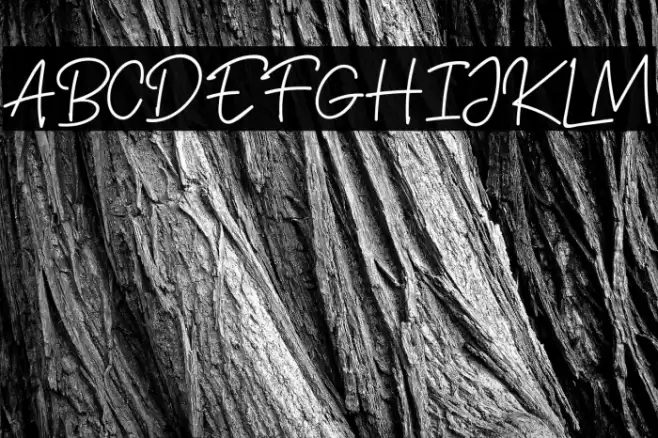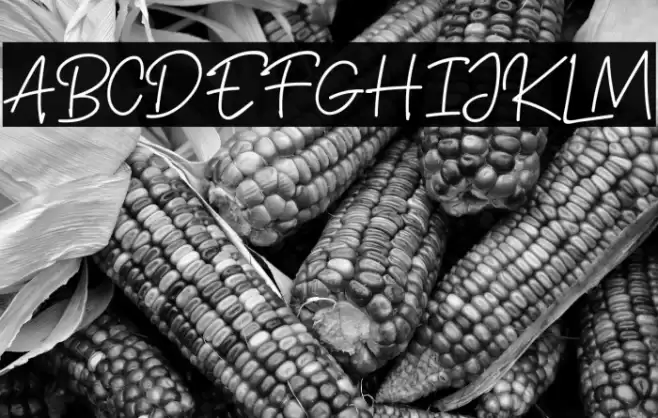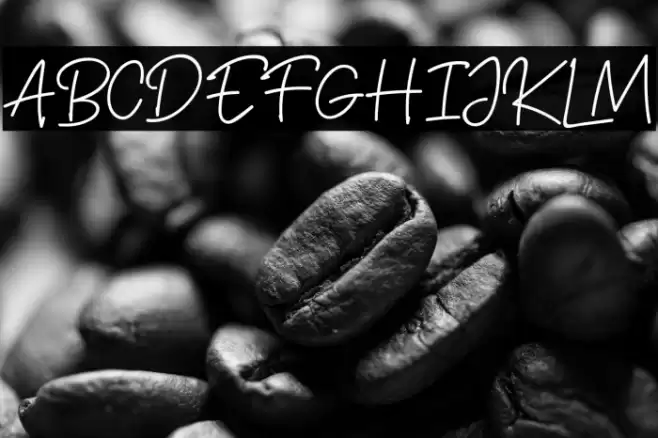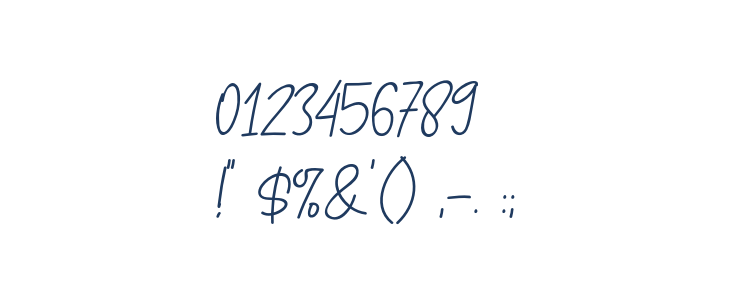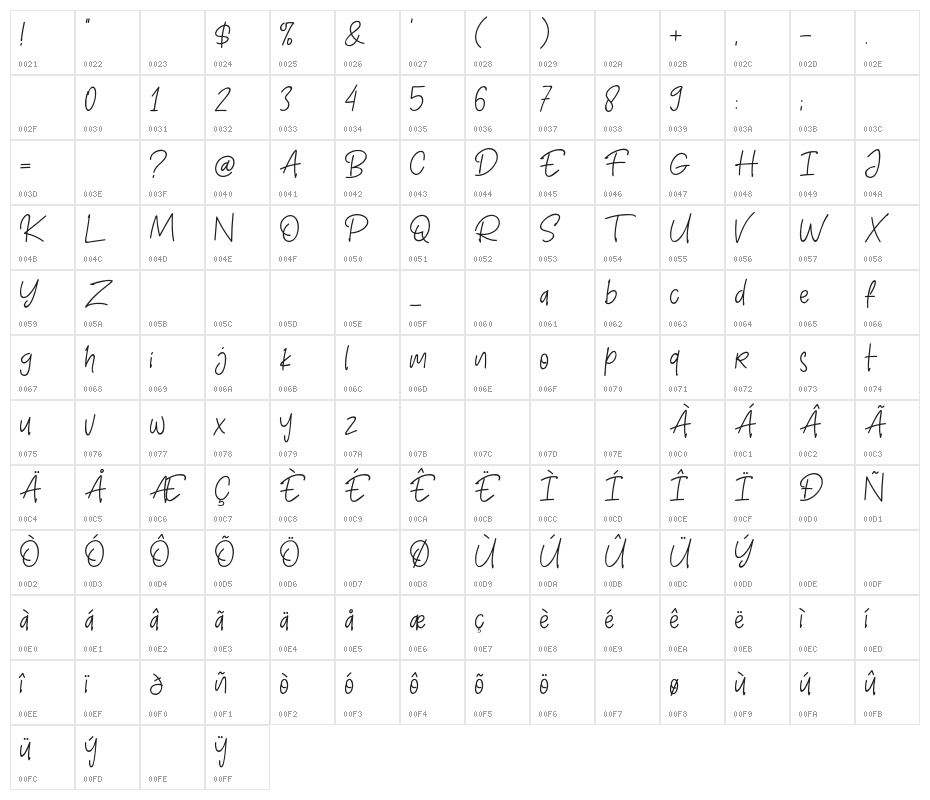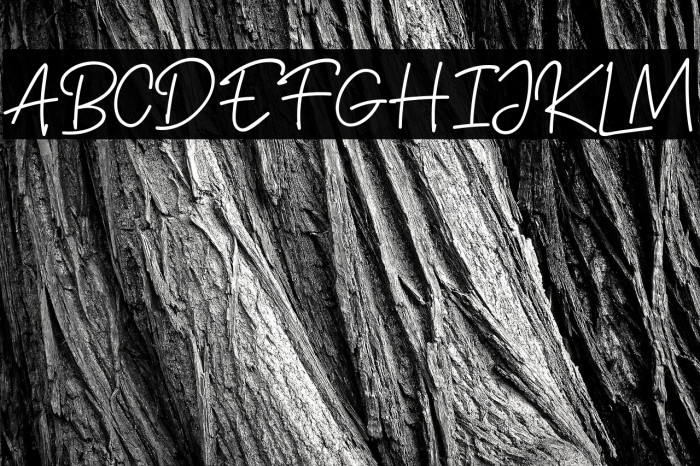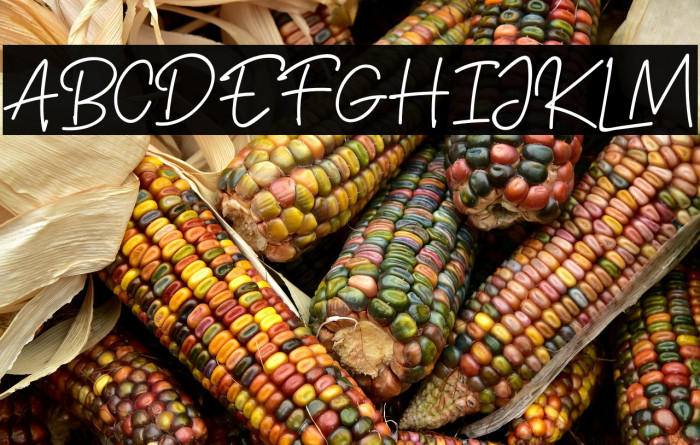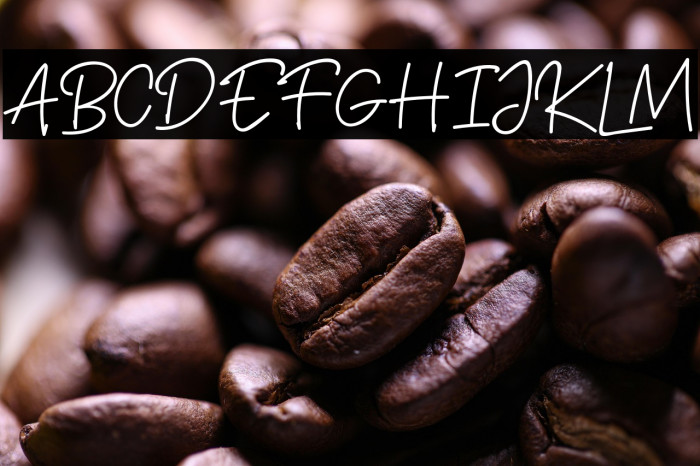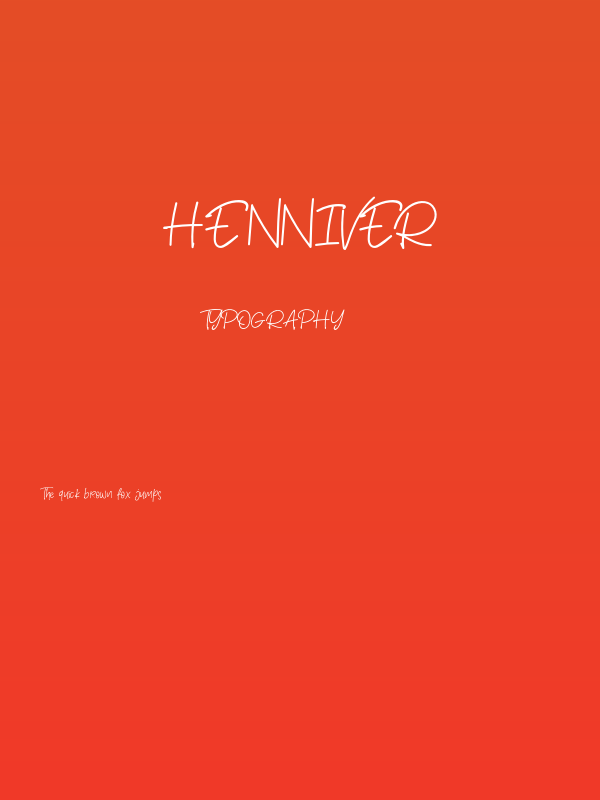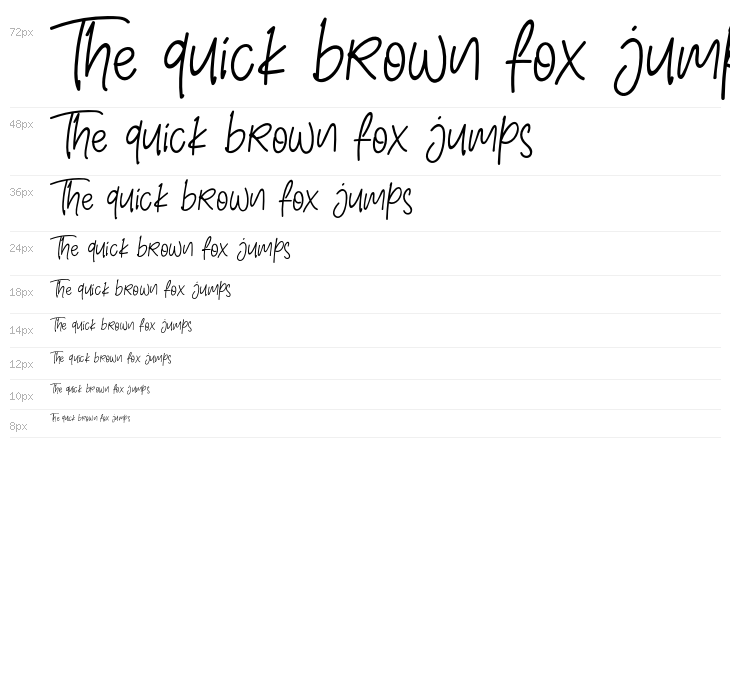
Henniver Font
Henniver Description
This font features a lively and dynamic handwritten style, characterized by its fluid and slightly irregular strokes that mimic natural handwriting. The uppercase letters are bold and expressive, while the lowercase letters maintain a consistent flow, adding a personal touch to the text. The numerals are clear and legible, matching the overall style of the alphabet. Special characters are thoughtfully designed to complement the letters, maintaining the handwritten aesthetic. This font is ideal for projects that require a personal, informal, or creative touch, such as invitations, greeting cards, or artistic branding.
A lively handwritten font with fluid, expressive strokes from Uncategorized fonts.
- Proposed Projects: Ideal for invitations, greeting cards, artistic branding, and creative projects.